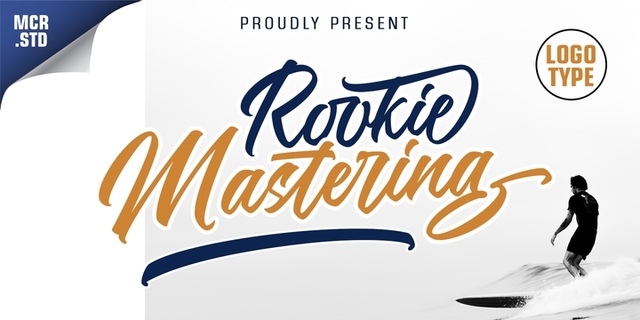
Rookie Mastering Typeface
Rookie Mastering Typeface excels in sports team branding, athletic apparel designs, fitness center signage, coaching academy logos, training camp materials, rookie league promotions, youth sports programs, gym membership cards, sports equipment packaging, and motivational workout posters. This dynamic typeface brings athletic energy and determination to any sports-related design project.
Rookie Mastering Typeface is exciting because it captures the raw energy and ambitious spirit of athletes beginning their journey toward mastery, featuring bold, confident letterforms that embody the determination and grit required to excel in competitive sports. Its powerful design instantly motivates and inspires action.
The Rookie Mastering Typeface family includes Light, Regular, Bold, and Black weights with italics for dynamic movement effects, plus stencil variants and outline versions that enhance the athletic aesthetic, providing comprehensive tools for creating impactful sports-focused typography compositions.
Sports marketers love Rookie Mastering Typeface for its exceptional ability to connect with audiences at every level of athletic achievement, from beginners taking their first steps to seasoned professionals refining their skills. The font's bold character and upward momentum create psychological associations with improvement, dedication, and the rewarding journey from novice to expert.
The design philosophy behind Rookie Mastering Typeface celebrates the transformative power of training and the universal appeal of athletic achievement. Creative teams working on fitness programs, sports education, or motivational campaigns find this font particularly effective for inspiring audiences to embrace challenges and pursue personal growth through physical activity.
Whether used for rookie training programs, mastery-focused coaching services, or inspirational fitness campaigns, Rookie Mastering Typeface delivers the perfect combination of strength and aspiration. Its motivational appeal and athletic authenticity make it an essential choice for brands that celebrate the journey from beginner to champion and inspire others to pursue their athletic potential.